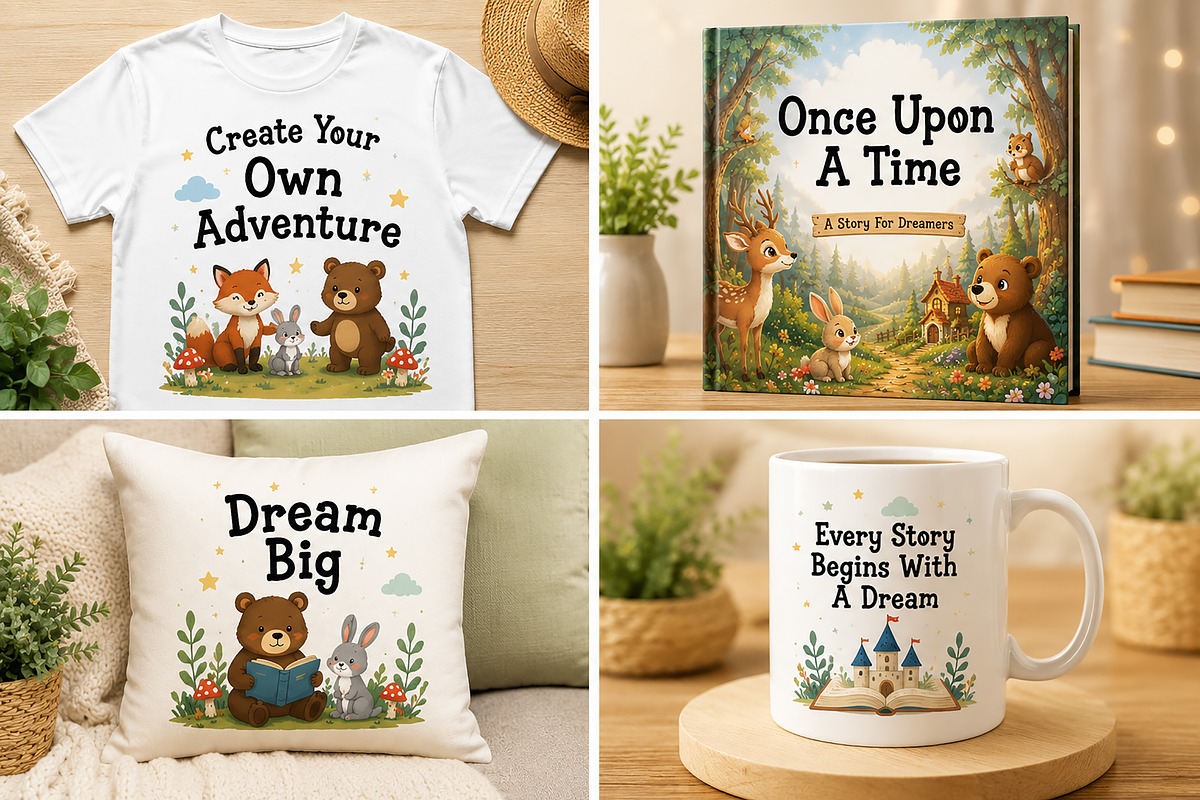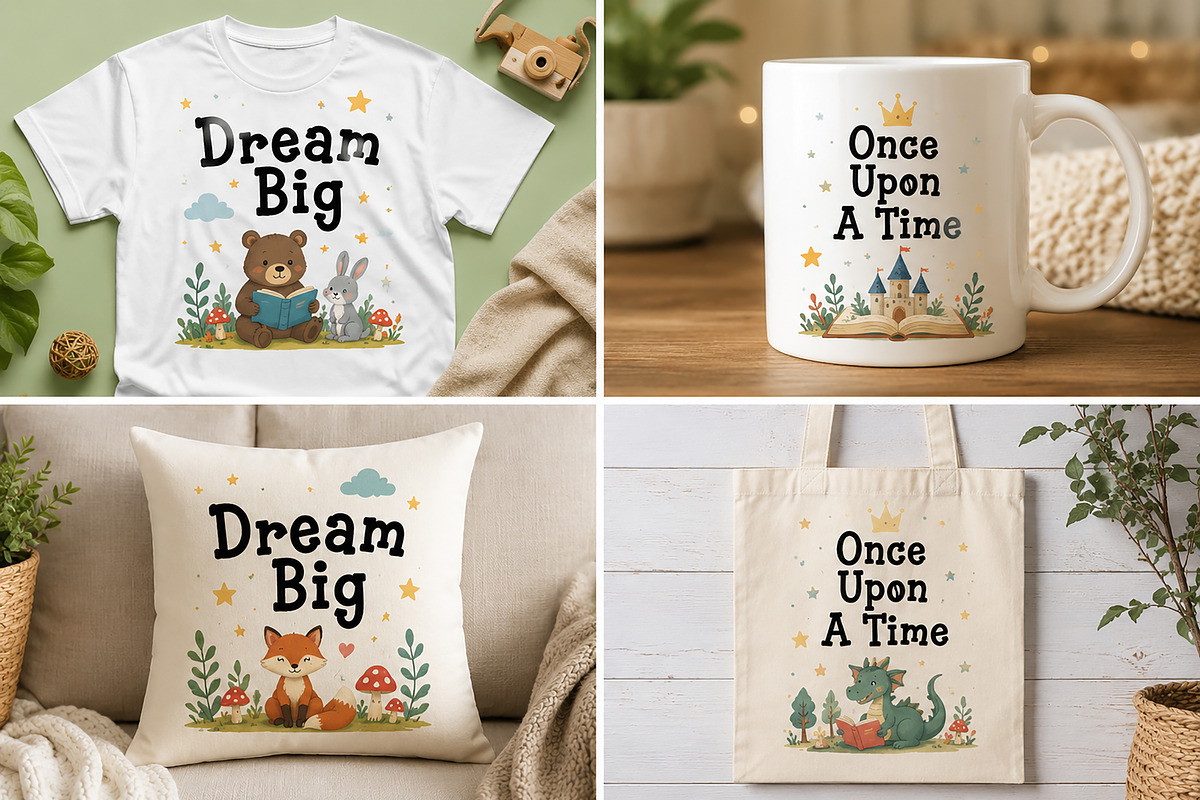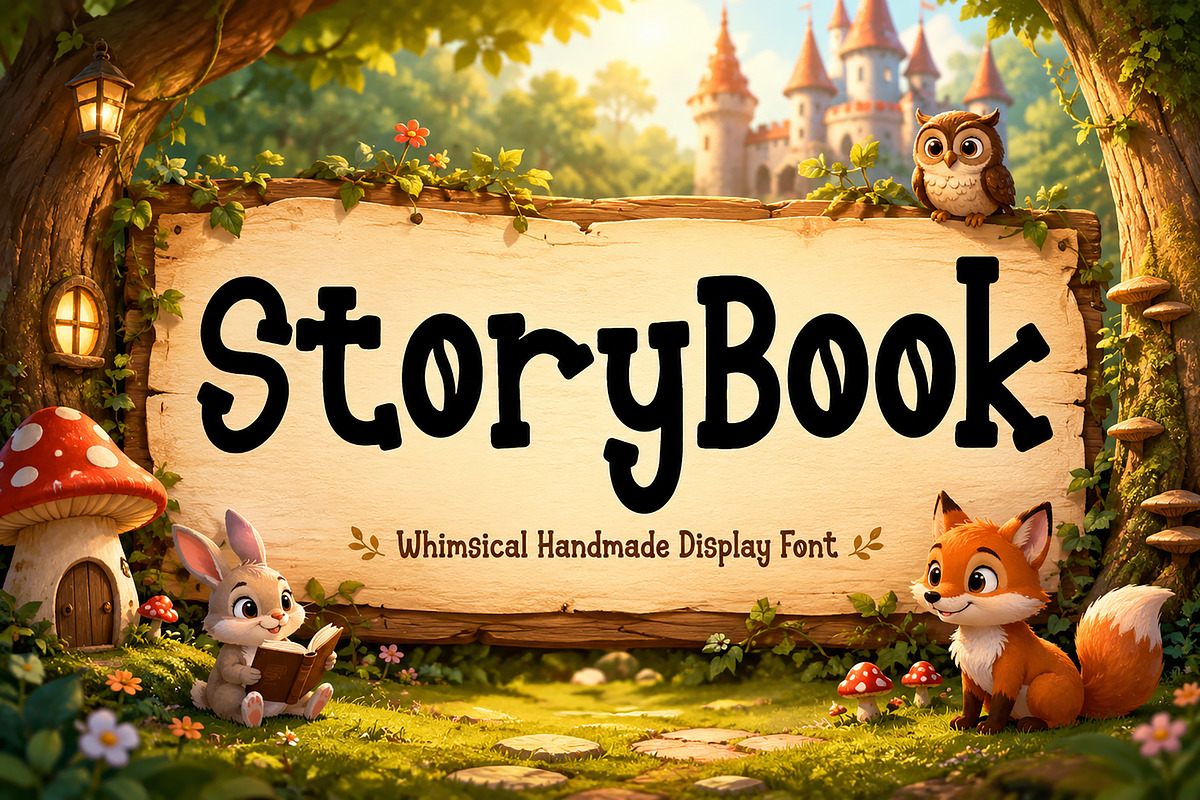
Storybook
StoryBook Font
StoryBook is a whimsical and playful display font inspired by fairy tales, children's books, magical adventures, and imaginative storytelling. With its handcrafted letterforms, charming personality, and fun decorative details, this font instantly brings warmth, creativity, and wonder to any design.
Perfect for children's book covers, nursery decor, classroom resources, toy packaging, birthday invitations, story-themed branding, social media graphics, posters, t-shirts, mugs, and creative craft projects.
Whether you're designing a magical forest adventure, a fairy tale book cover, or a playful kids' brand, StoryBook adds a joyful and enchanting touch to your work.
• Children's Book Covers
• Storybook Titles
• Nursery Wall Art
• Kids Branding
• Birthday Invitations
• Classroom Decorations
• Educational Materials
• Toy Packaging
• T-Shirts & Merchandise
• Social Media Graphics
• Posters & Flyers
• Cricut & Craft Projects
• Quotes & Typography Designs
• Fantasy & Fairytale Themes
• Uppercase Characters
• Lowercase Characters
• Numbers & Punctuation
• Easy to Read Display Style
• Handcrafted Look
Bring your stories to life with the magical charm of StoryBook!
StoryBook is a playful handmade display font inspired by children's books, fairy tales, and magical adventures. Perfect for book covers, nursery decor, invitations, branding, merchandise, and creative projects that need a fun and whimsical touch.